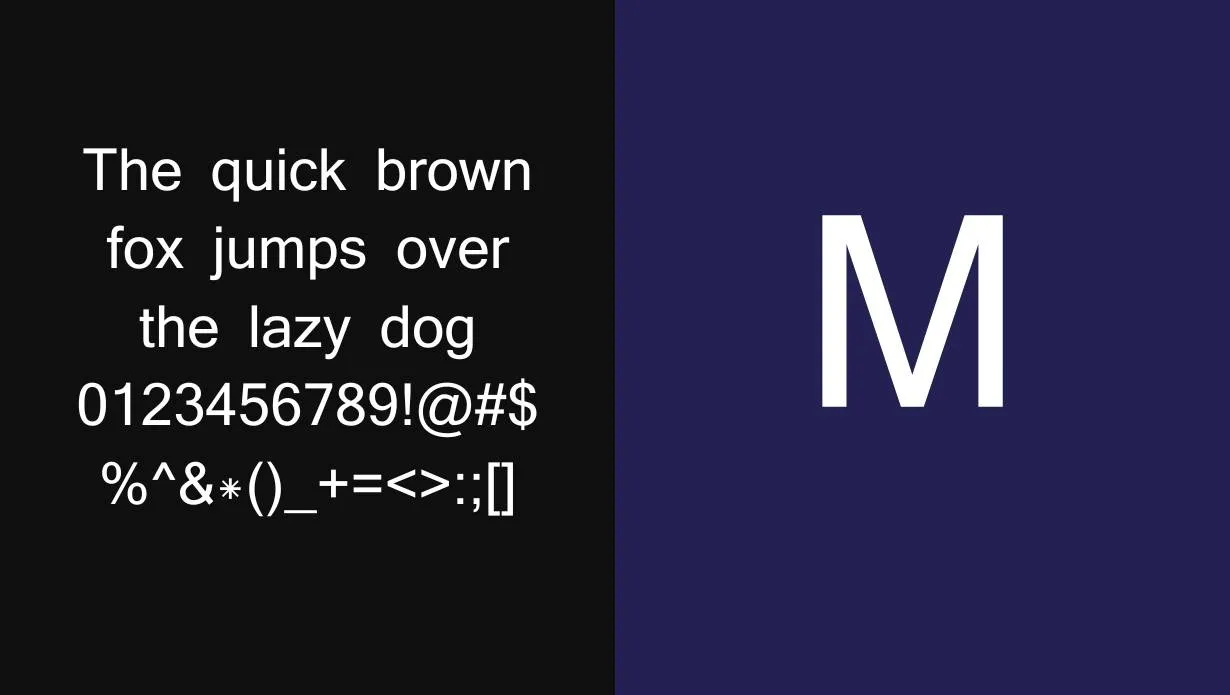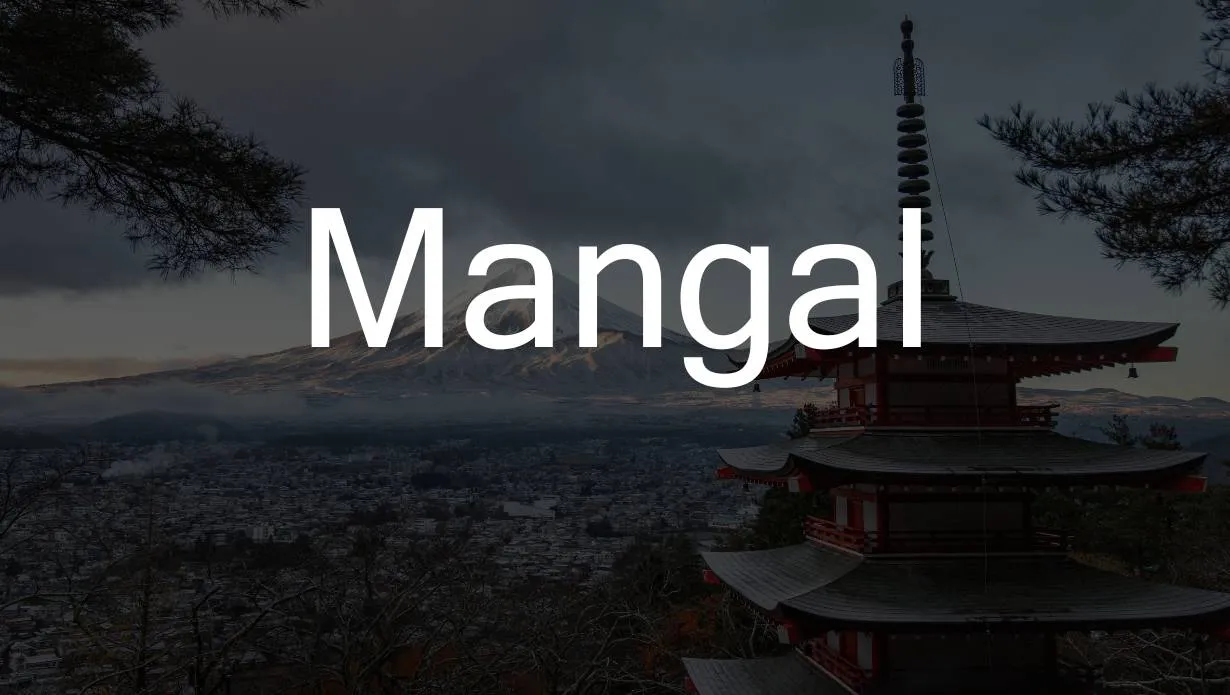
About Mangal Font
Mangal is a Unicode‑based OpenType typeface designed for the Devanagari script, widely used for Hindi, Marathi, Nepali, Sanskrit, and other Indic languages. It features clear, legible letterforms optimized for user interface text, documents, and digital applications. Originally developed to support modern computing environments, Mangal has become a standard Devanagari font included in Microsoft Windows and Office products. The design balances traditional script requirements with contemporary readability needs. Its broad language support makes it a reliable choice for multilingual content involving Devanagari text.